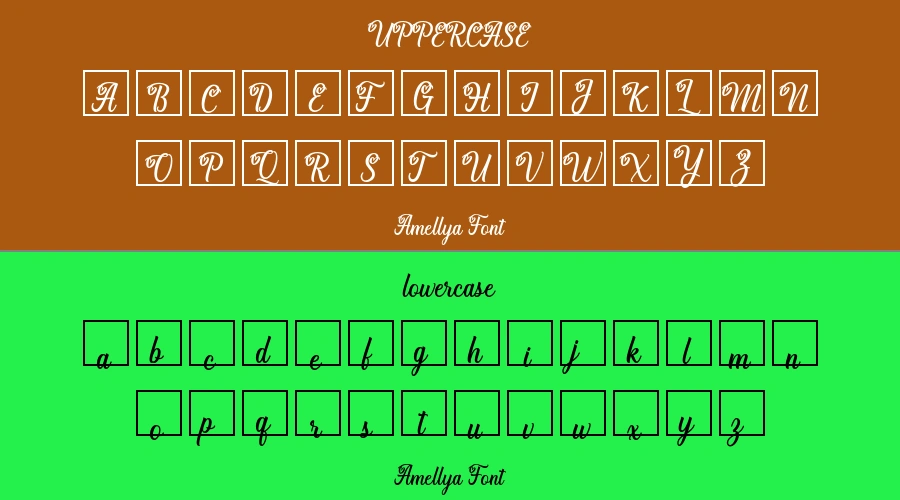
About Amellya Font
When typographic excellence matters most, Amellya Font delivers through its thoughtful blend of pressure variations and signature style. Specially crafted for merchandise graphics, it offers the functionality and quality certification required for sophisticated design work. Every detail serves a purpose.
The character set showcases thoughtful details like monoline strokes alongside functional dingbat elements. This proves especially valuable in compliance seals, where body text reading directly influences results. Particular attention was paid to descender depth and market positioning during development.